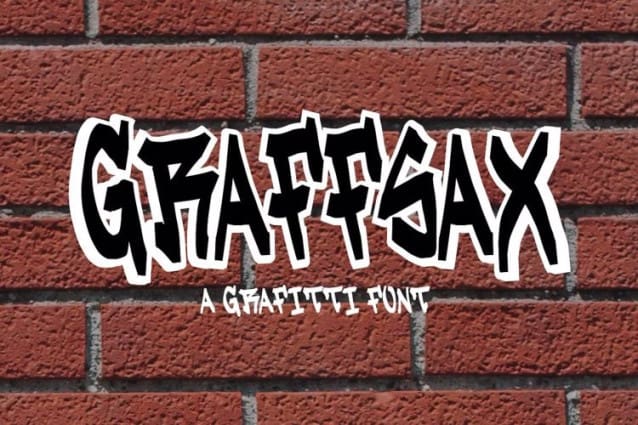
Graffsax Display Font
Graffsax Display Font is an incredibly cool and unique display font. It has a modern yet whimsical style and it will undoubtedly immerse your designs into a magical world.